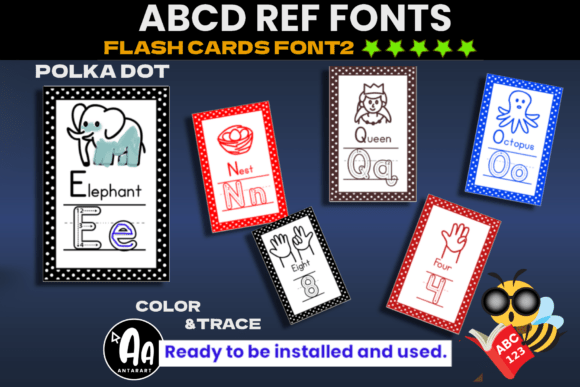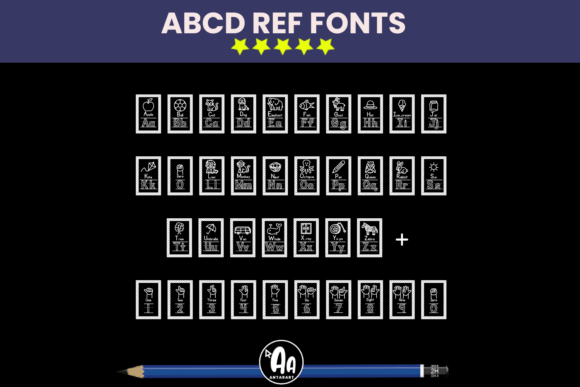
Abcd Ref Flash Cards Polka Dot Font: A Fun Learning Tool for Preschoolers and Kindergarteners
Are you a teacher, homeschooler, or parent looking for an engaging and interactive way to teach preschoolers and kindergarteners the alphabet, numbers, and basic learning skills? Look no further than the Abcd Ref Flash Cards Polka Dot Font, a comprehensive and fun learning tool that features alphabet letters, numbers, and adorable illustrations. In this article, we’ll explore the benefits and features of this innovative font and how it can support your teaching or homeschooling endeavors.
What are Abcd Ref Flash Cards?
The Abcd Ref Flash Cards Polka Dot Font is a set of interactive flashcards designed to help preschoolers and kindergarteners learn the alphabet, numbers, and basic learning skills. The font features both uppercase and lowercase letters, as well as numbers 0-9, making it a comprehensive learning tool. The flashcards are based on the D’Nealian handwriting method, a widely used and effective approach to teaching handwriting.
Key Features of Abcd Ref Flash Cards
- Alphabet Letters: Both uppercase and lowercase letters are included, making it easy for young learners to recognize and differentiate between the two.
- Numbers 0-9: The font includes numbers 0-9, providing a solid foundation for basic math skills.
- Adorable Illustrations: The flashcards feature cute and engaging illustrations that will capture young learners’ attention and make learning fun.
- D’Nealian Handwriting Method: The font is based on the D’Nealian handwriting method, a proven approach to teaching handwriting.
- Support for Teachers and Homeschoolers: The Abcd Ref Flash Cards Polka Dot Font is designed to support teachers and homeschoolers alike, providing a valuable resource for creating engaging and interactive learning materials.
Using Abcd Ref Flash Cards in the Classroom or Homeschool
The Abcd Ref Flash Cards Polka Dot Font is a versatile tool that can be used in a variety of ways in the classroom or homeschool. Here are a few ideas:
- Flashcard Templates: Create your own flashcard templates in seconds using the Abcd Ref Flash Cards Polka Dot Font. Add your own images or text to create customized learning materials.
- Classroom Decoration: Use the font to create posters, bulletin boards, or learning corners that are both fun and educational.
- Interactive Learning: Use the flashcards to create interactive learning activities, such as matching games, sorting games, or scavenger hunts.
Benefits of Using Abcd Ref Flash Cards
The Abcd Ref Flash Cards Polka Dot Font offers a range of benefits for young learners, including:
- Improved Handwriting: The D’Nealian handwriting method used in the font helps young learners develop good handwriting habits.
- Alphabet and Number Recognition: The font helps young learners recognize and differentiate between uppercase and lowercase letters, as well as numbers 0-9.
- Enhanced Learning Engagement: The adorable illustrations and interactive nature of the flashcards make learning fun and engaging.
The Abcd Ref Flash Cards Polka Dot Font is a valuable resource for teachers, homeschoolers, and parents looking for a fun and interactive way to teach preschoolers and kindergarteners the alphabet, numbers, and basic learning skills. With its comprehensive features, ease of use, and versatility, this font is a must-have tool for creating engaging and interactive learning materials. Whether you’re a seasoned educator or a homeschooling parent, the Abcd Ref Flash Cards Polka Dot Font is sure to become a go-to resource in your teaching or homeschooling toolkit.